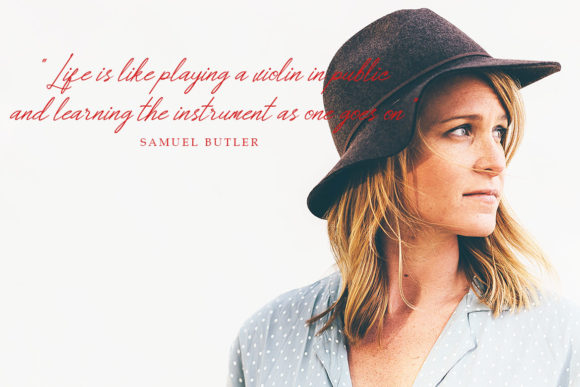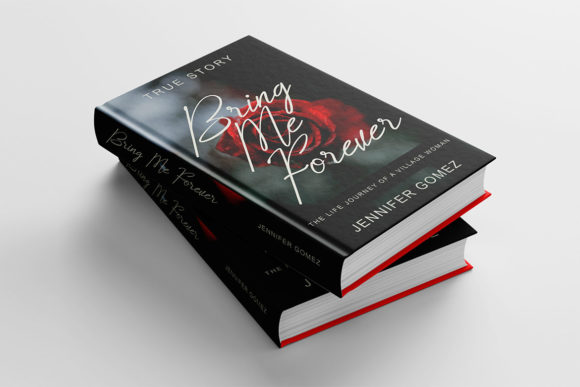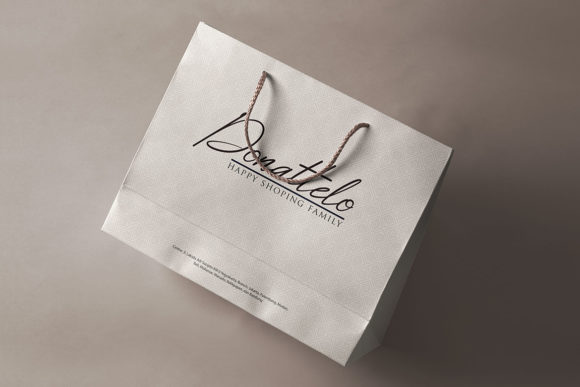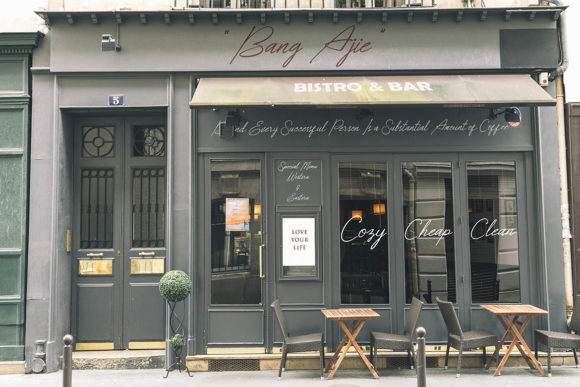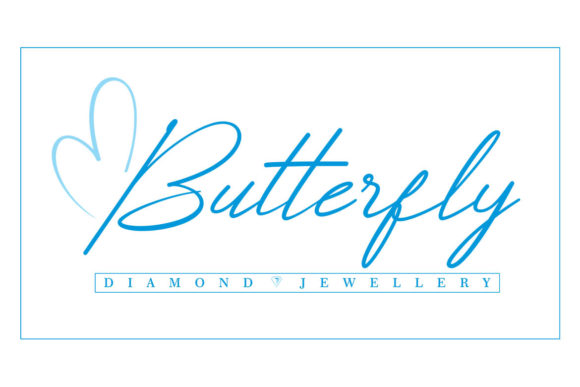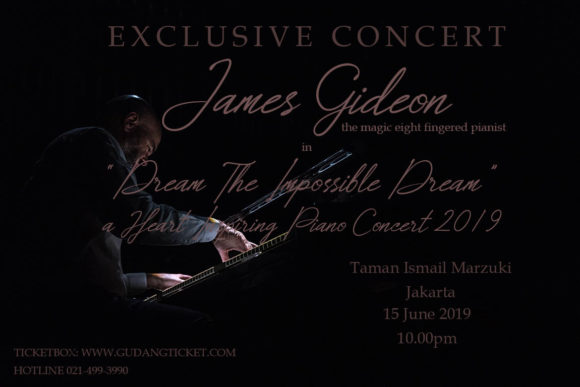
Introducing Dear Elisa Font: Elevate Your Designs with Elegance
Are you a designer or crafter looking for a font that exudes luxury and sophistication? Look no further than Dear Elisa Font. This modern handwritten script is perfect for adding a touch of elegance to your branding, signatures, watermarks, business cards, clothing, magazines, and more.
What Makes Dear Elisa Font Special?
Dear Elisa Font boasts a natural and elegant style that is sure to elevate your designs. Its modern handwritten script aesthetic gives it a unique and luxurious feel that will set your work apart from the rest. Whether you’re looking to add a personal touch to your branding or create a lasting impression with your designs, Dear Elisa Font is the perfect choice.
One of the best things about Dear Elisa Font is its versatility. It’s perfect for a wide range of design applications, including:
- Branding: Add a touch of elegance to your logo, packaging, and marketing materials.
- Signatures: Create a lasting impression with a beautiful, handwritten signature.
- Watermarks: Add a touch of sophistication to your photos and designs.
- Business Cards: Stand out from the crowd with a luxurious and elegant business card design.
- Clothing: Create beautiful and unique designs for your clothing line.
- Magazines: Add a touch of elegance to your magazine layouts and designs.
Why Choose Dear Elisa Font?
There are many reasons why Dear Elisa Font is a top choice among designers and crafters. Here are just a few:
- Unique and Luxurious Feel: Dear Elisa Font has a unique and luxurious feel that will set your designs apart from the rest.
- Elegant Style: Its elegant style makes it perfect for designs that require a touch of sophistication.
- Versatile: It’s perfect for a wide range of design applications.
- Easy to Read: Despite its elegant style, Dear Elisa Font is easy to read and understand.
Tips for Using Dear Elisa Font
Here are a few tips for getting the most out of Dear Elisa Font:
- Use it Sparingly: Dear Elisa Font is perfect for adding a touch of elegance to your designs. Use it sparingly to create a lasting impression.
- Pair it with Other Fonts: Don’t be afraid to pair Dear Elisa Font with other fonts to create a unique and interesting design.
- Experiment with Different Sizes: Experiment with different sizes to find the perfect fit for your design.
Dear Elisa Font is a modern handwritten script that is perfect for designers and crafters looking to add a touch of elegance to their designs. Its unique and luxurious feel, elegant style, and versatility make it a top choice for a wide range of design applications. Whether you’re looking to create a lasting impression with your branding, add a personal touch to your signatures, or create a luxurious feel with your designs, Dear Elisa Font is the perfect choice.